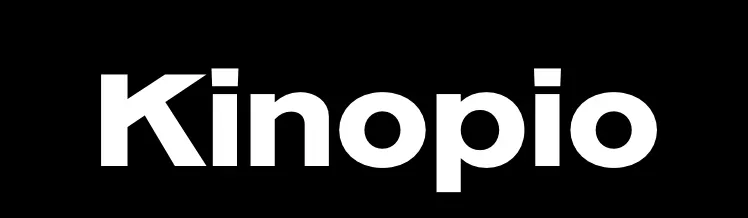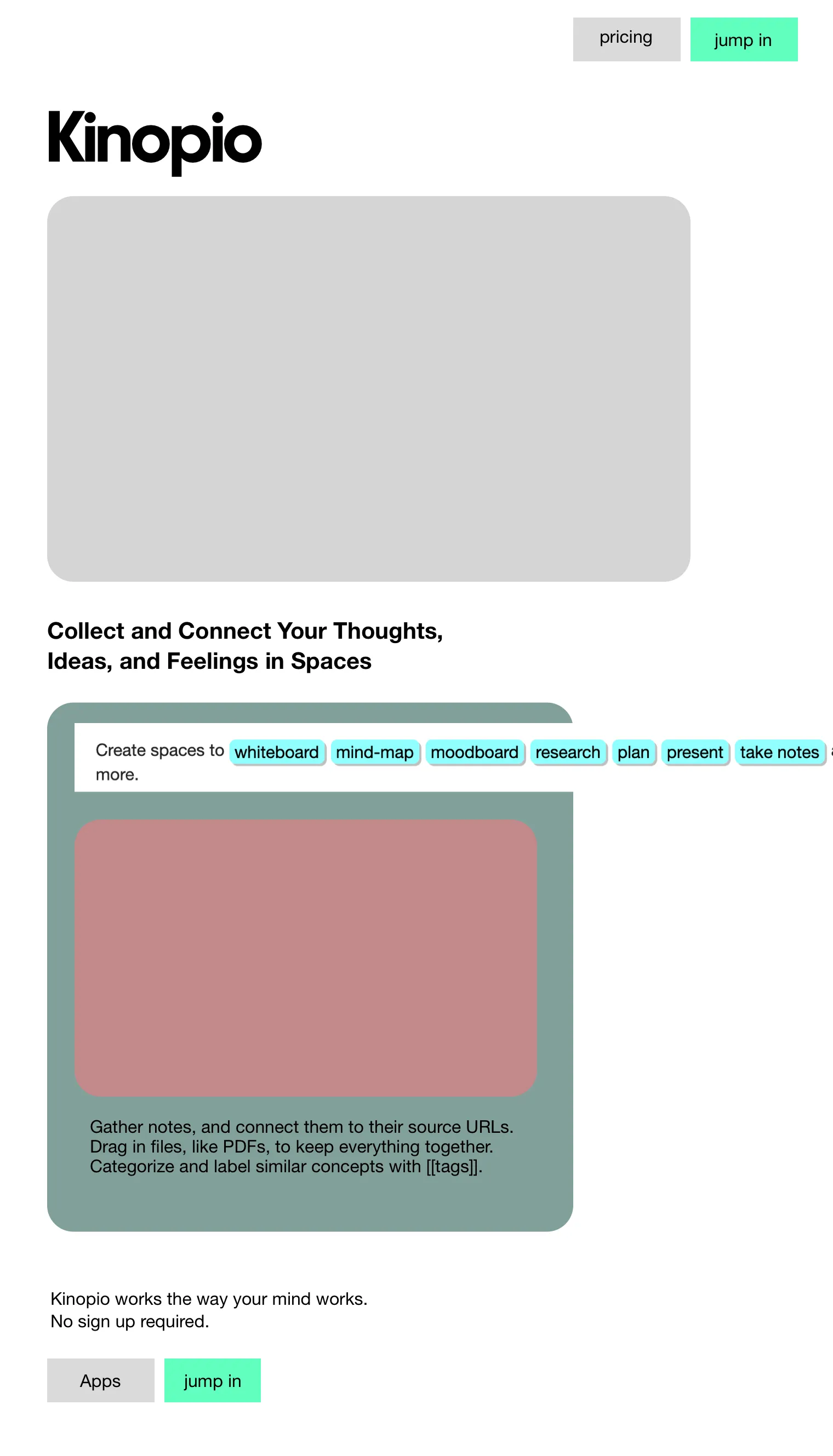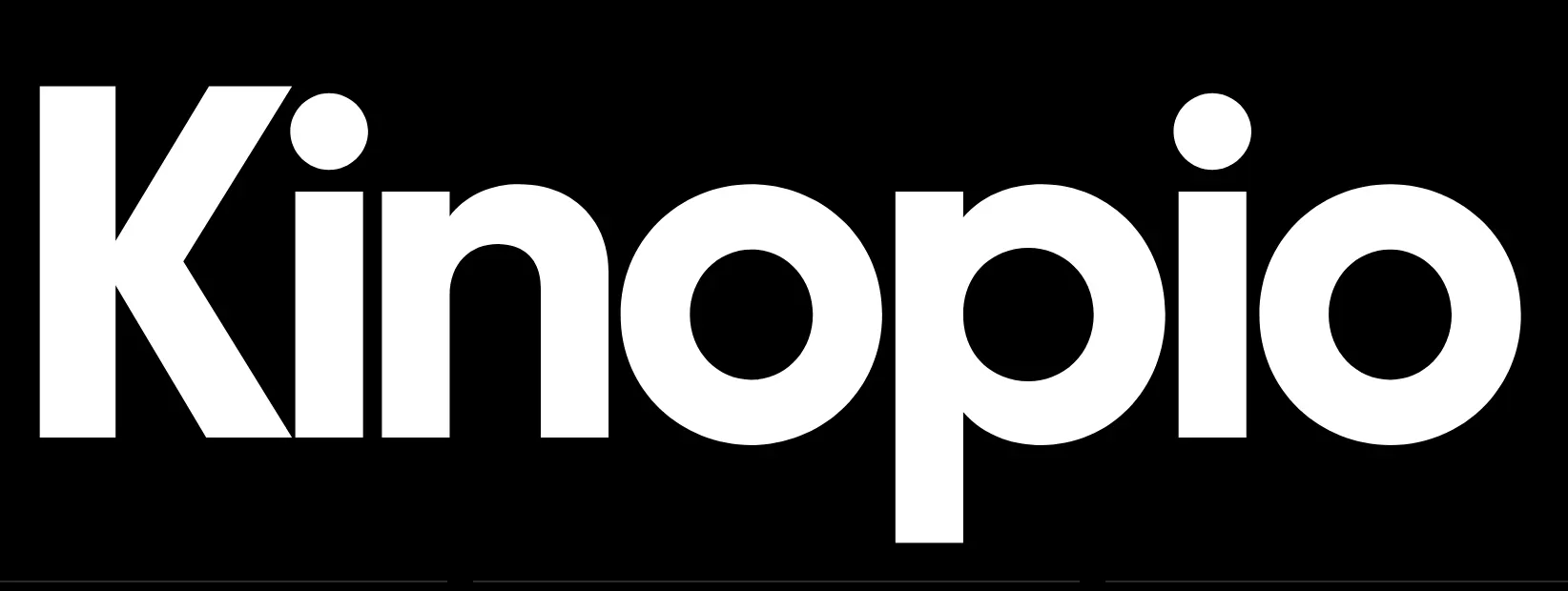
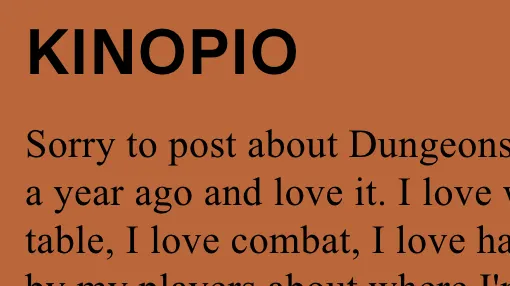
how to use it , is what it is
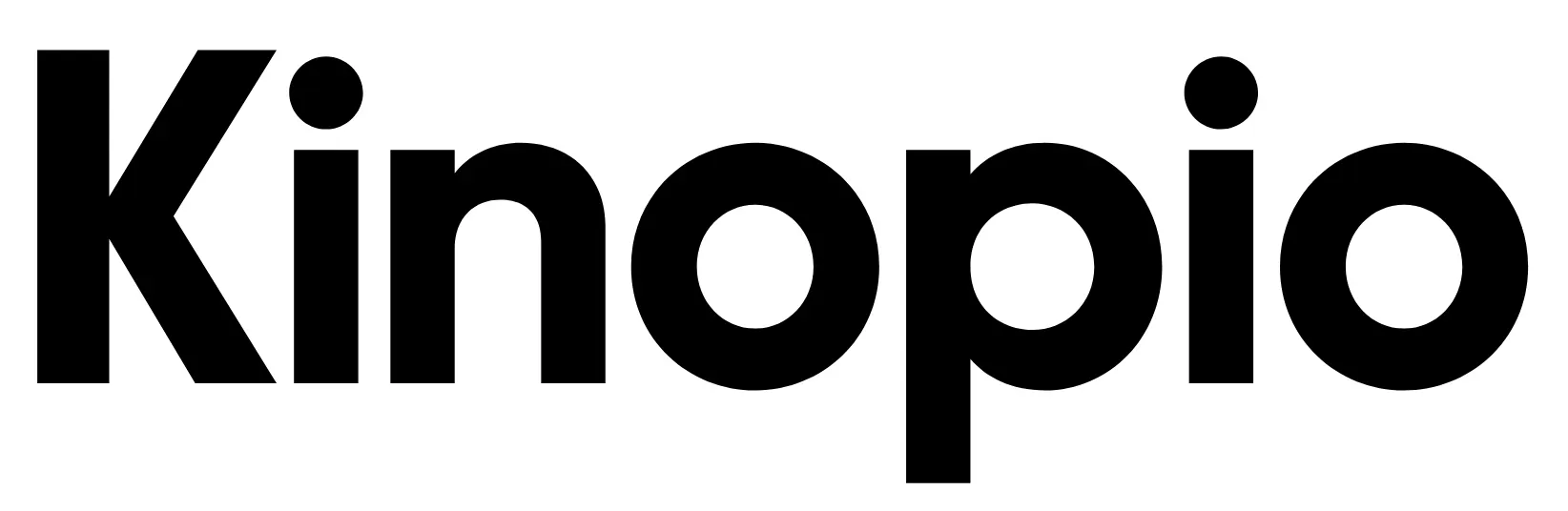
ppl are ok w reading
explain it the way you would conversationally
maybe uses inbox bk color
gt alpina, or h1 body serif?
body: Diatype Programm, Favorit Light
feel like a genuine counterpart to the app’s design
h1: quirky serif: g2 ciao
widen the appeal, remove trepidation
criteria, emotional goals